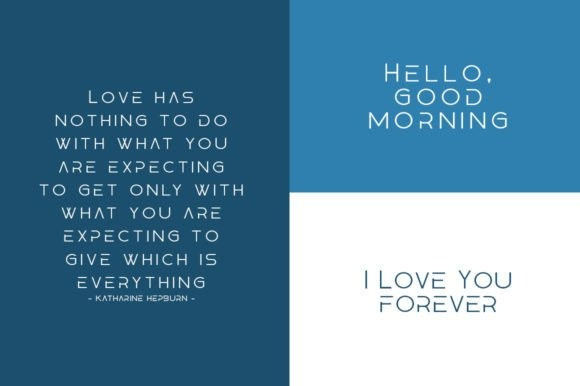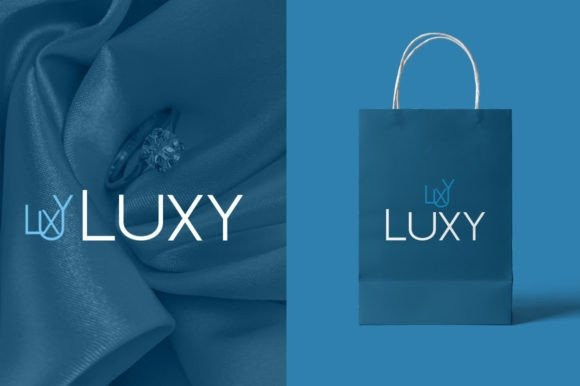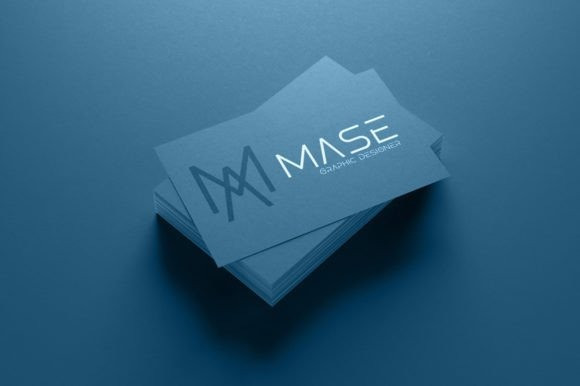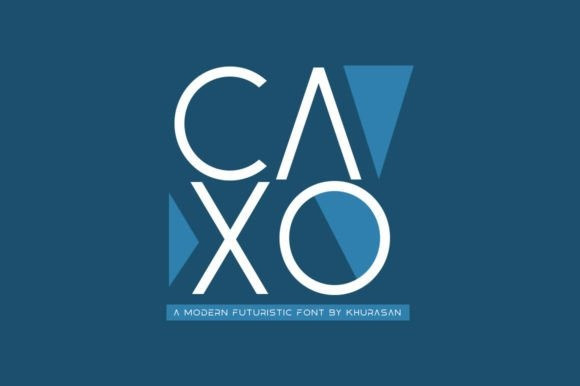
Caxo Font
Caxo Sans Serif Font is a fancy stencil with a lot of features to use. You can use lower and upper case to create a mixture of a stencil touched multifunctional headline. Caxo font suitable for logo, branding, greeting card, poster and any design that you create.